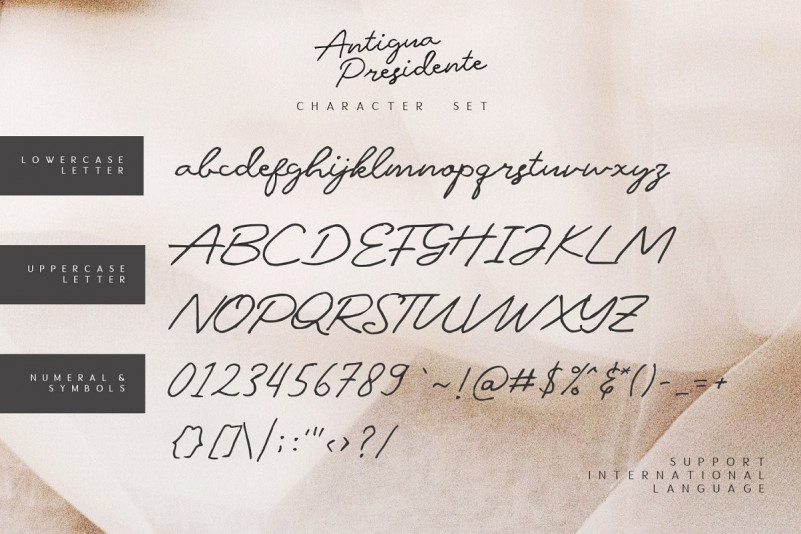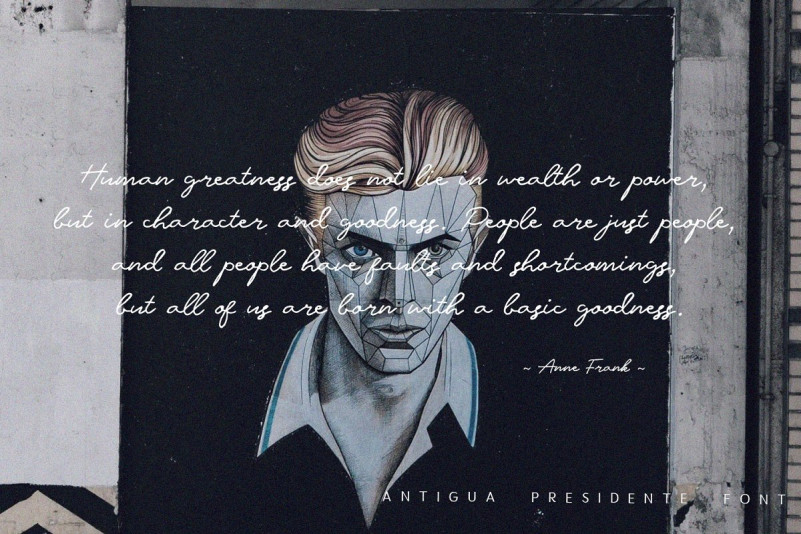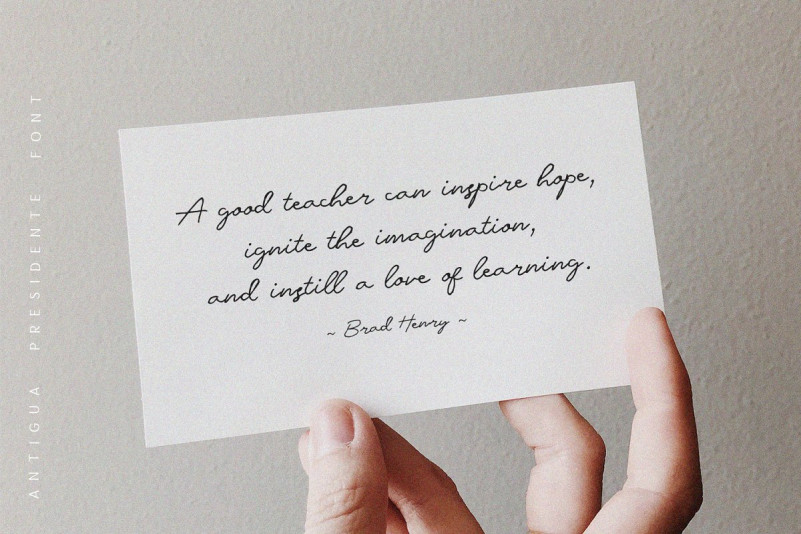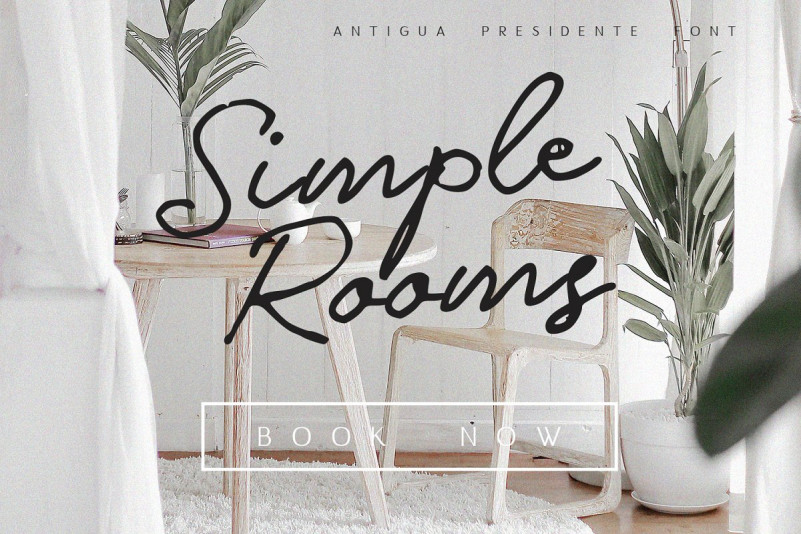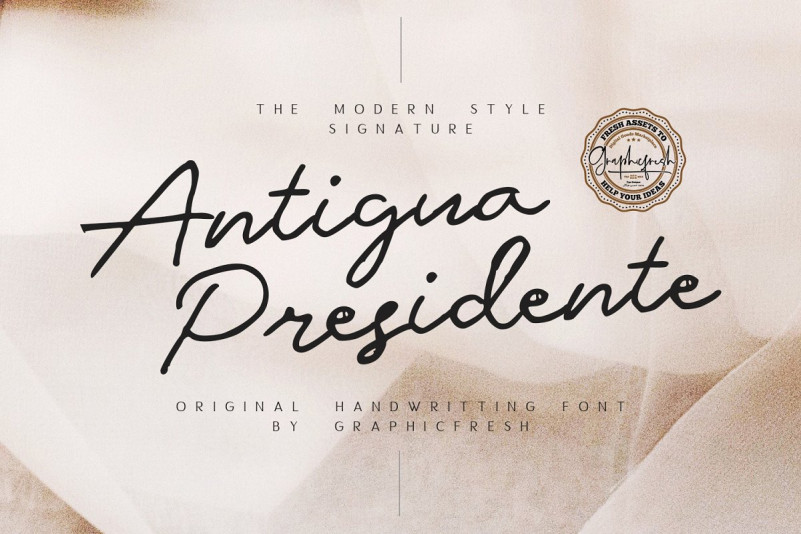
Antigua Presidente Script Font
Introducing Antigua Presidente Font. It is designed by Graphicfresh, this is a premium font, are sold on creativemarket, but it was great, it is free today for download. Antigua Presidente – Script Font – A Handwritting script and unique character! it’s perfect for logos, name card, magazine layouts, invitations, headers, or even large-scale artwork.